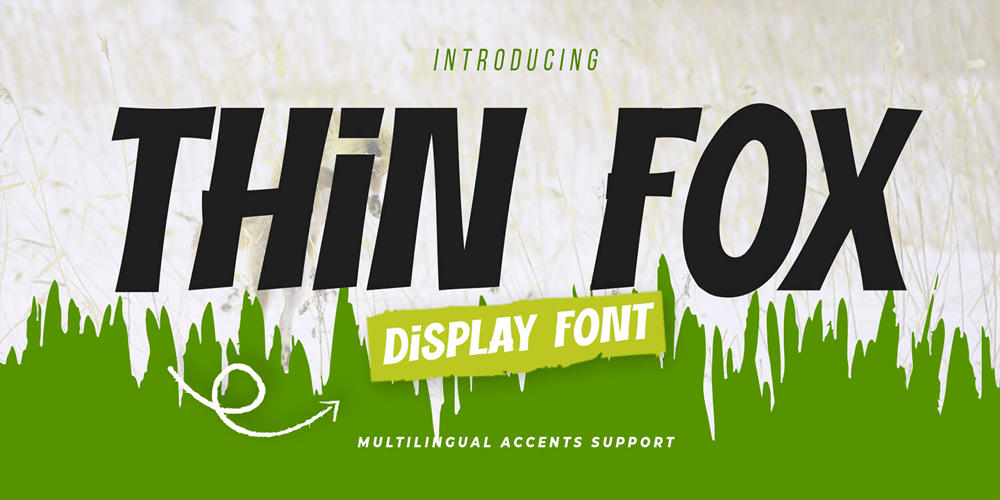
Thin Fox Font Family was designed by Abdul Malik Wisnu, Anang Fibriyanto and published by Gassstype. Thin Fox contains 1 styles and family package options. Hello Everyone, introduce our new product Font THIN FOX This Is Display Font.This is a Textured Natural Style and classy style with a clear style and dramatic movement.This font THIN FOX is great for your next creative project such as logos, printed quotes, invitations, cards, product packaging, headers, Logotype.